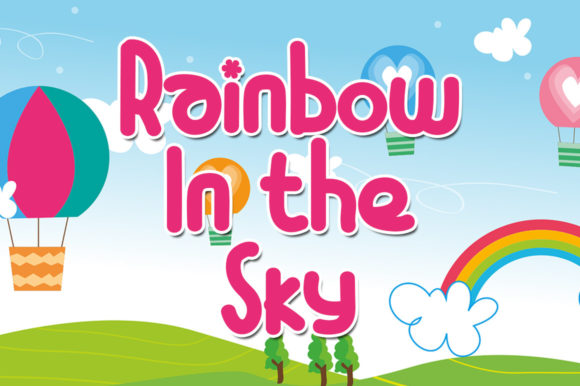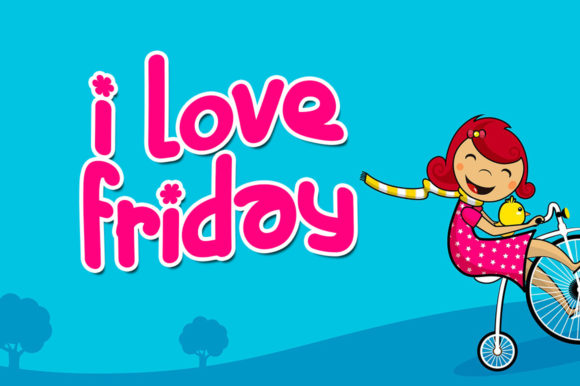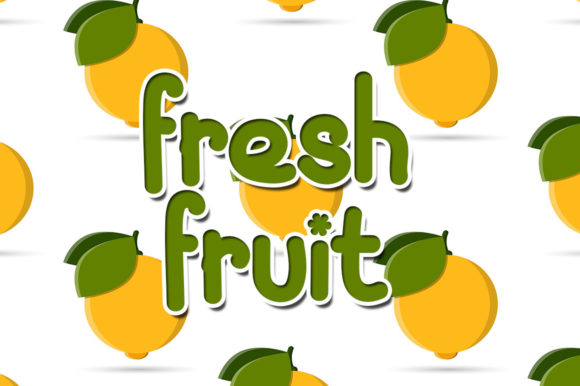
Introduction to Loving Holiday Font
Loving Holiday is a sweet and playful display font.
Its natural and unique style makes it incredibly fitting to a large pool of designs This font is perfect for children themed designs, especially when combined with bright colors.